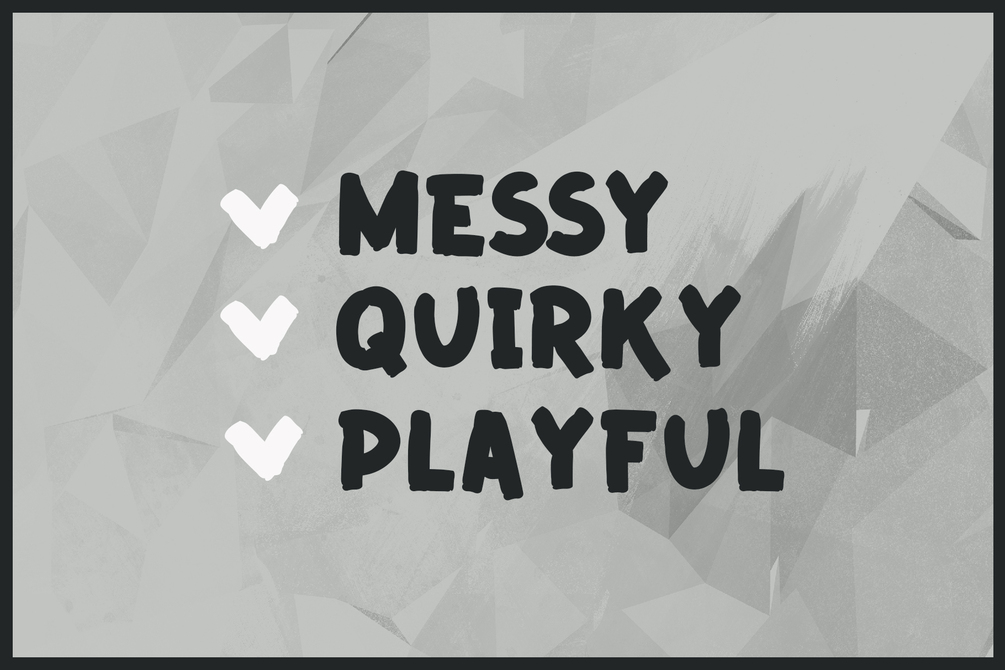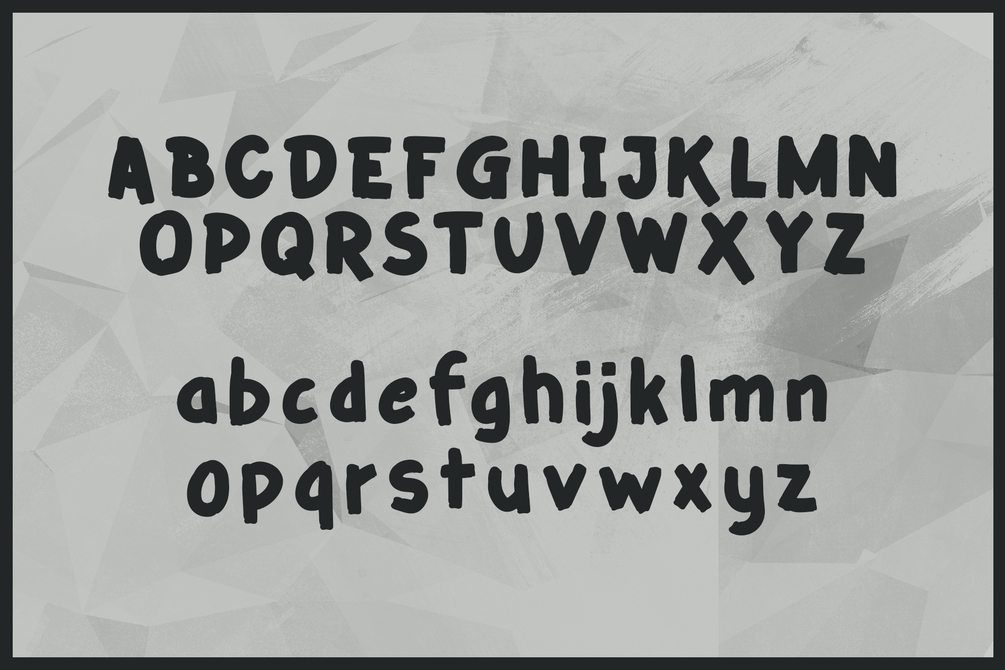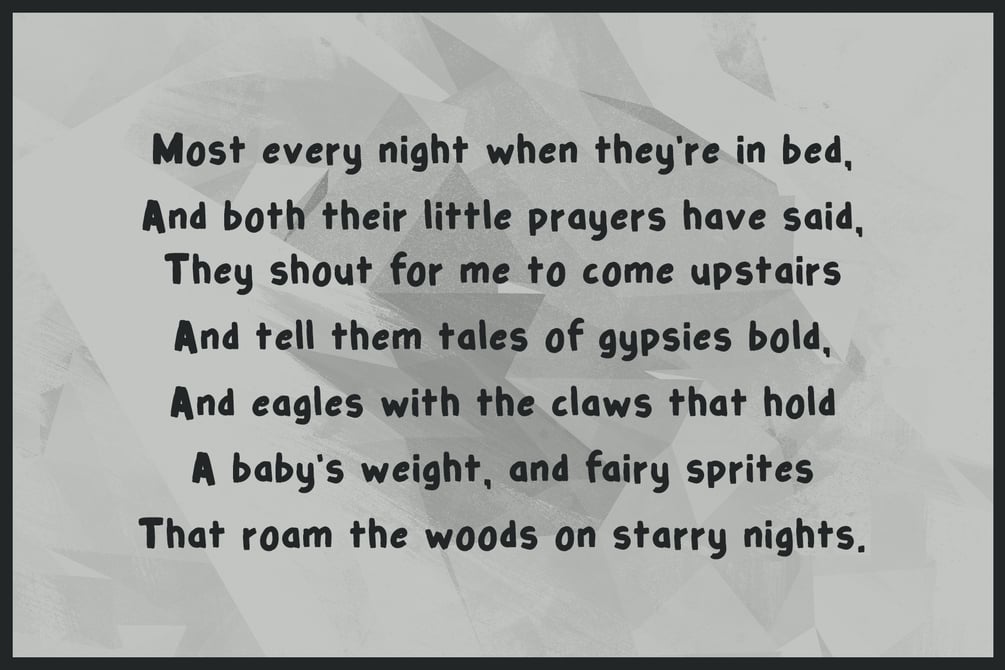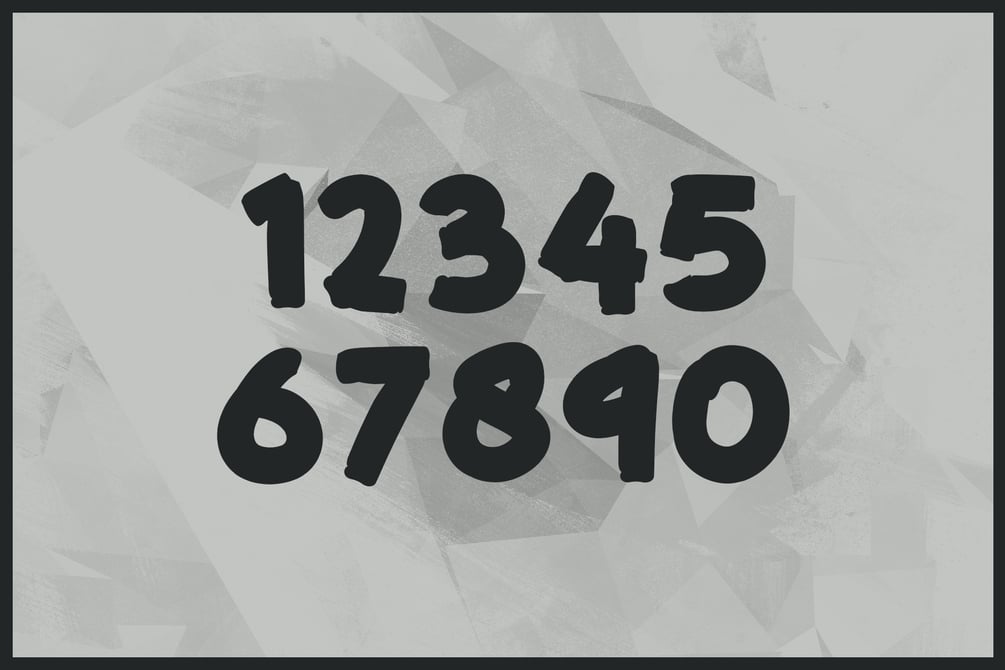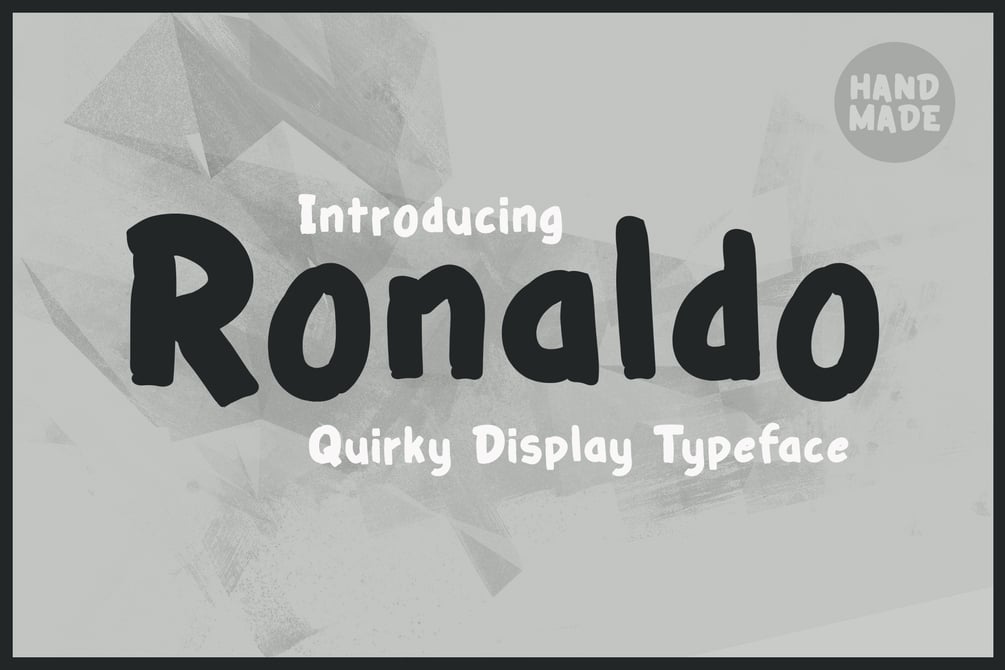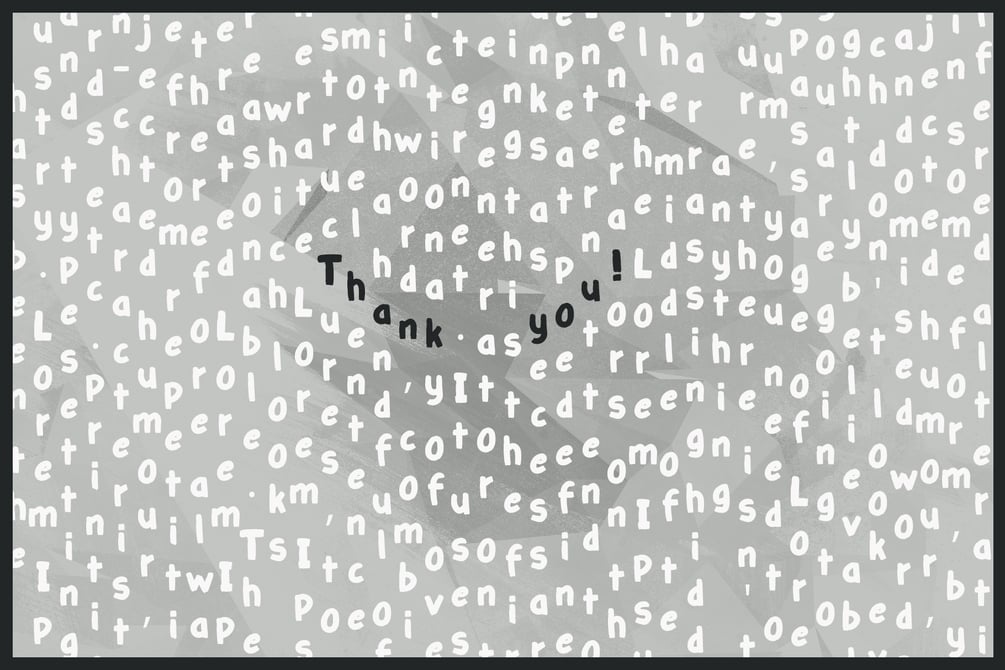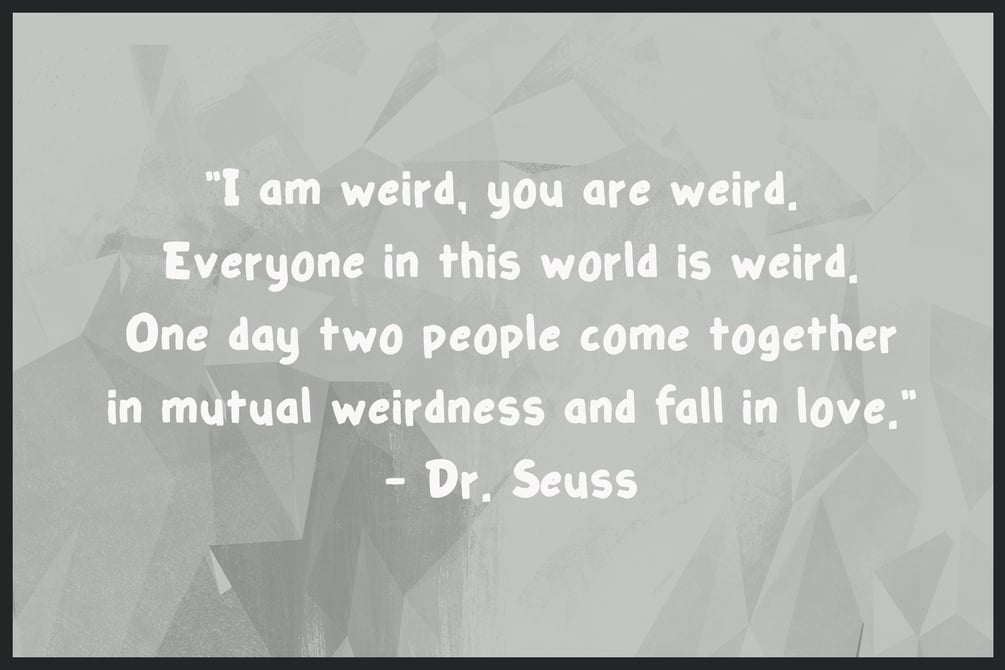
Ronaldo - Quirky & Playful Typeface
Ronaldo is a quirky display typeface ready to give your designs a playful vibe. This typeface was handmade using thick paint brushes. The laidback feel of Ronaldo can be felt just by looking at it.
• Standard upper and lowercase English characters are included.
• Perfect for logos, posters, headlines, books, album covers and other branding materials. Web fonts included for use online or in an app.